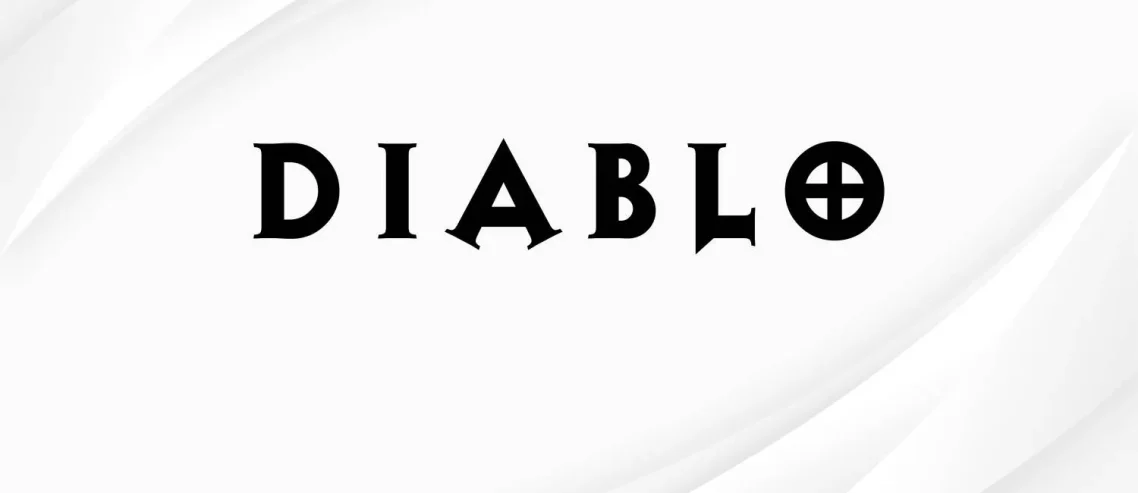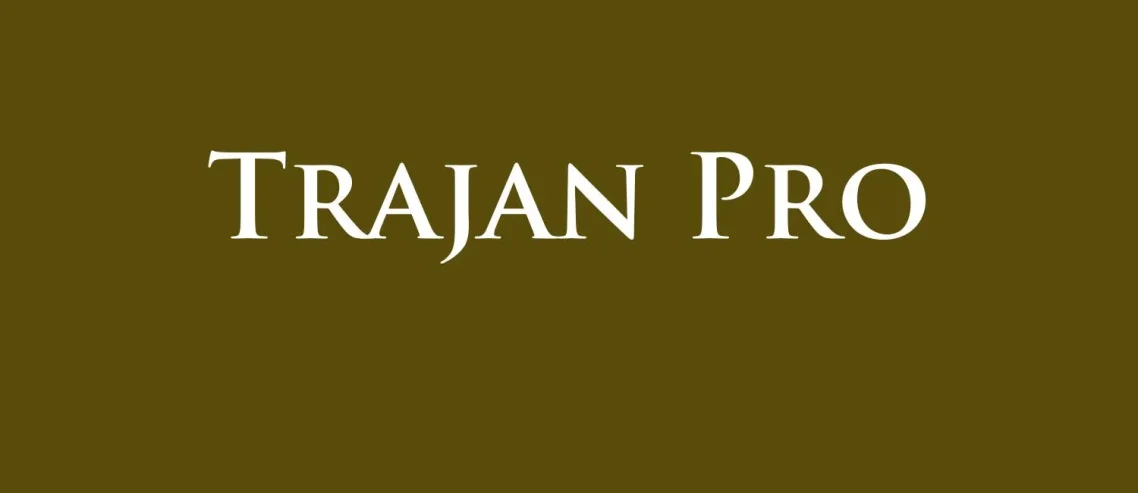
Stylish Classy Script Font
Stylish Classy Script Font is available here for free download. This is one of the luxury fonts that make the content look elegant and it is for free. And he releases it thru variety foundry for the primary time. This has taken the fundamentals of barlow font. This font is used in the photodetection method. …
GF Halda Font Free Download
GF Halda Font is a modern and clean typeface designed by Ryoichi Tsunekawa. This sans-serif font is characterized by its simplicity and readability, making it suitable for a wide range of applications. It is often used in digital interfaces, websites, and branding materials where a contemporary and straightforward aesthetic is desired. GF Halda Font’s versatility …
Deja Vu Handwritten Ink Font
Deja Vu Handwritten Ink Font is considered as one of the most creative typefaces. This is quite similar to the botdoh and kiramba font. In a comparable growth, ra bali font holds the all accurate reserved for it. Now, the excellent’s manufacturers inc took the all right reserved for this employer. It’s headquarter located in …
Diablo Font Free Download
Diablo Font is a fierce and dramatic typeface that exudes a sense of power and intensity. With its sharp serifs and bold characters, it’s perfect for projects that aim to make a strong and bold statement. Whether you’re working on logos, headlines, or event promotions, Diablo Font brings a touch of Gothic drama to your …
Lonkie Brush Font
Lonkie Brush Font is the principle typefaces of google doctors. This font is present in Microsoft phrase. This is available here for free. Therefore, we’re proper here if you want to font loved ones that can be in all likelihood generated after the usage of the idea of the raleway font and its person. Style …
Trajan Pro Bold Font Free Download
Trajan Pro Bold Font, designed by Carol Twombly, is a bold and impactful typeface falling under the category of transitional serif fonts. Known for its Roman-inspired letterforms, this font is widely used in movie posters, titles, and high-end print materials. Trajan Pro Bold Font exudes a sense of authority and grandeur, making it a popular …